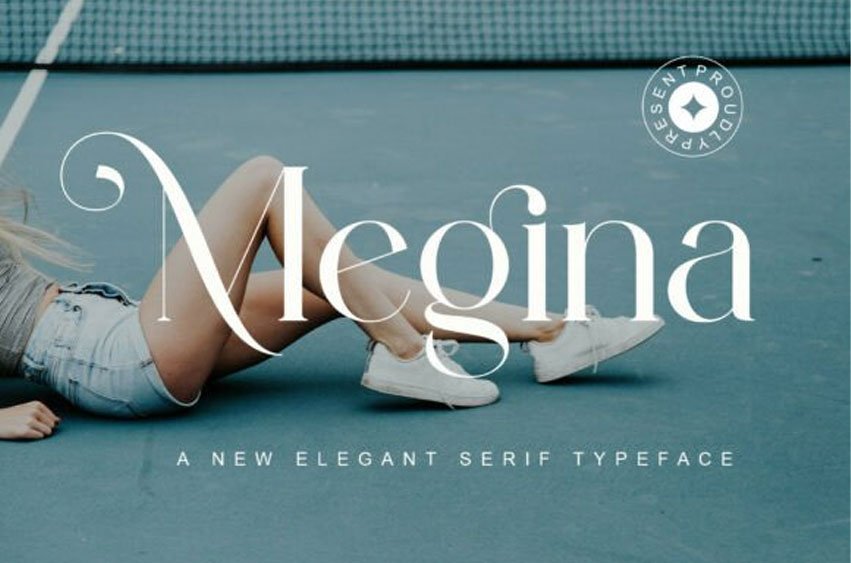
Megina Serif Font is an elegant, modern serif font with graceful ligatures that evoke the delicate beauty of fresh blooms and timeless sophistication. Its bold yet refined letterforms create a harmonious blend of classic charm and contemporary style, making it the perfect choice for upscale projects—from floral stationery and fashion editorials to luxury branding.
Designed with versatility in mind, Megina features beautifully crafted ligatures and a soft, feminine aesthetic that brings a touch of refinement to every composition. Each letter is thoughtfully shaped, offering a natural rhythm and a polished, intentional presence.